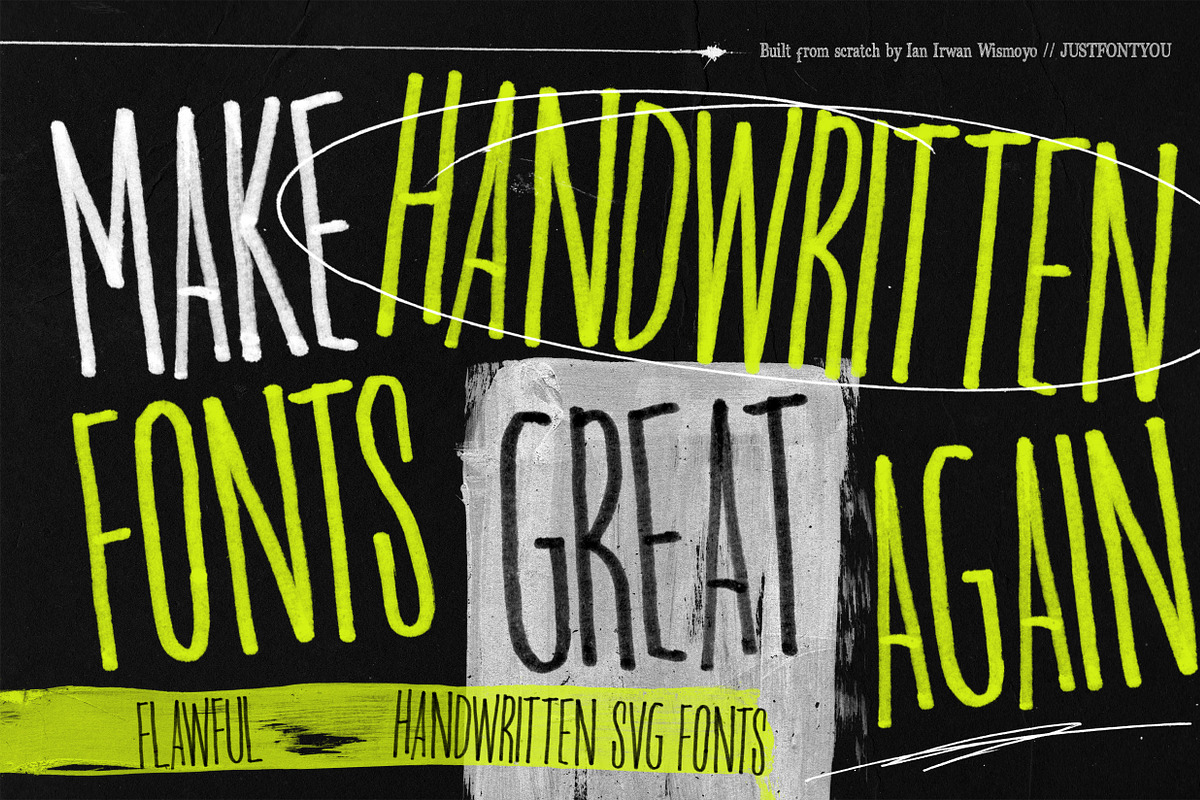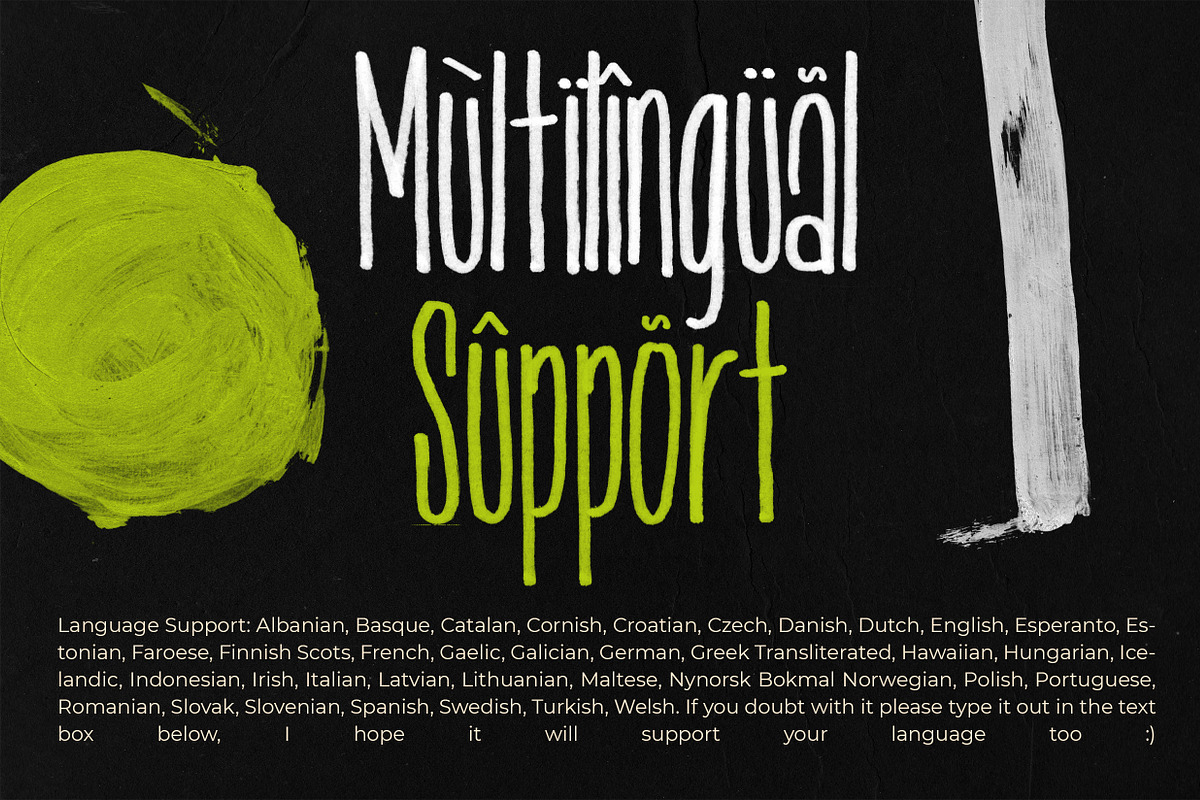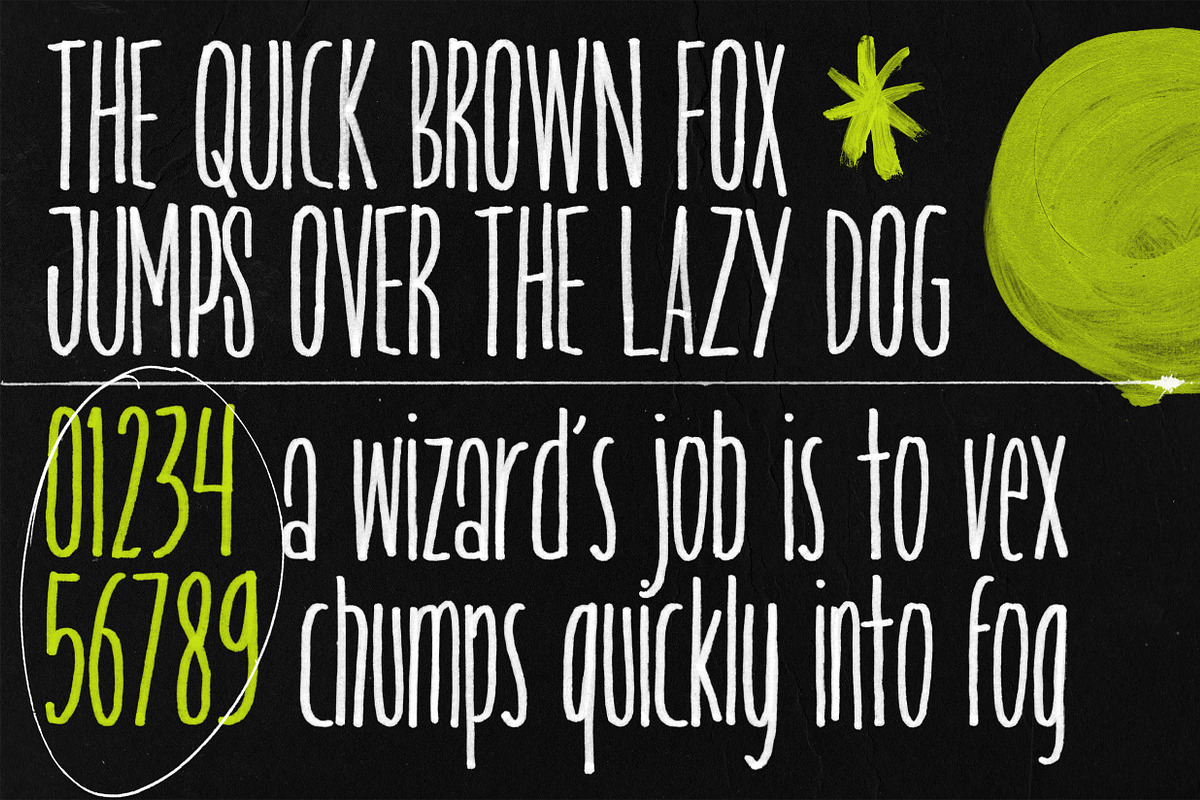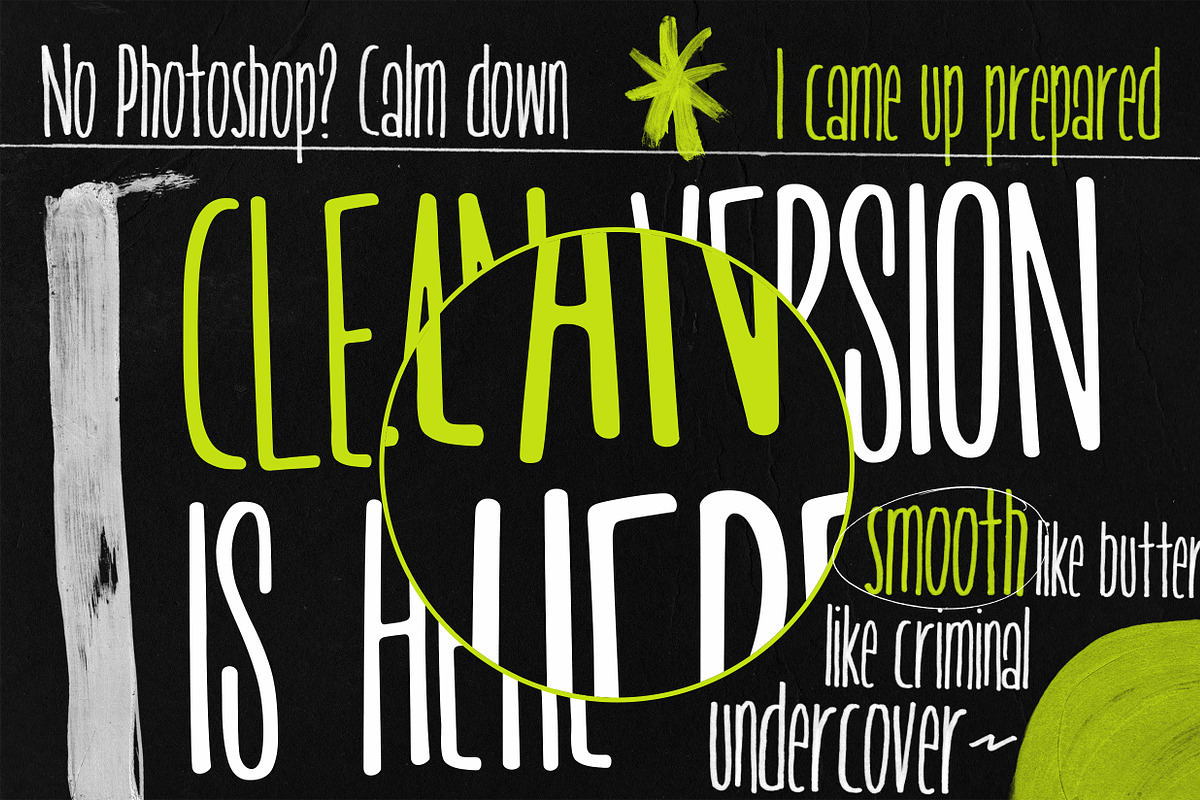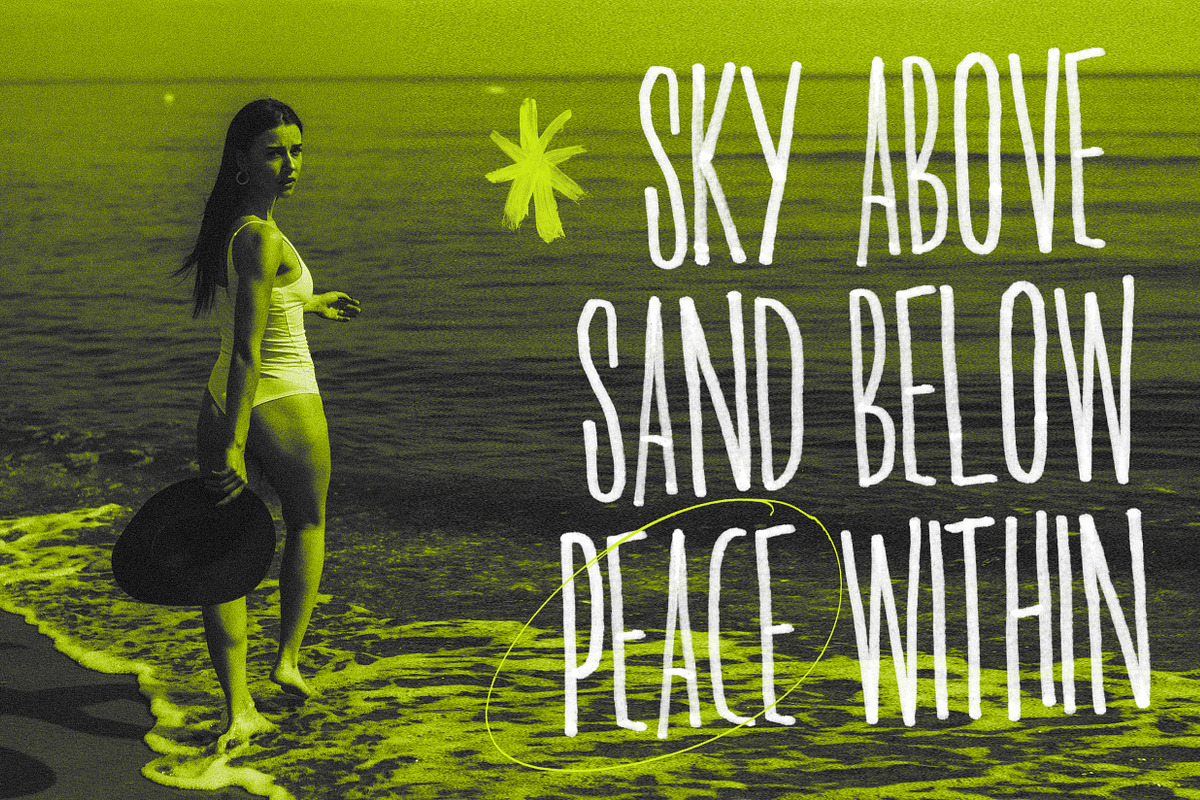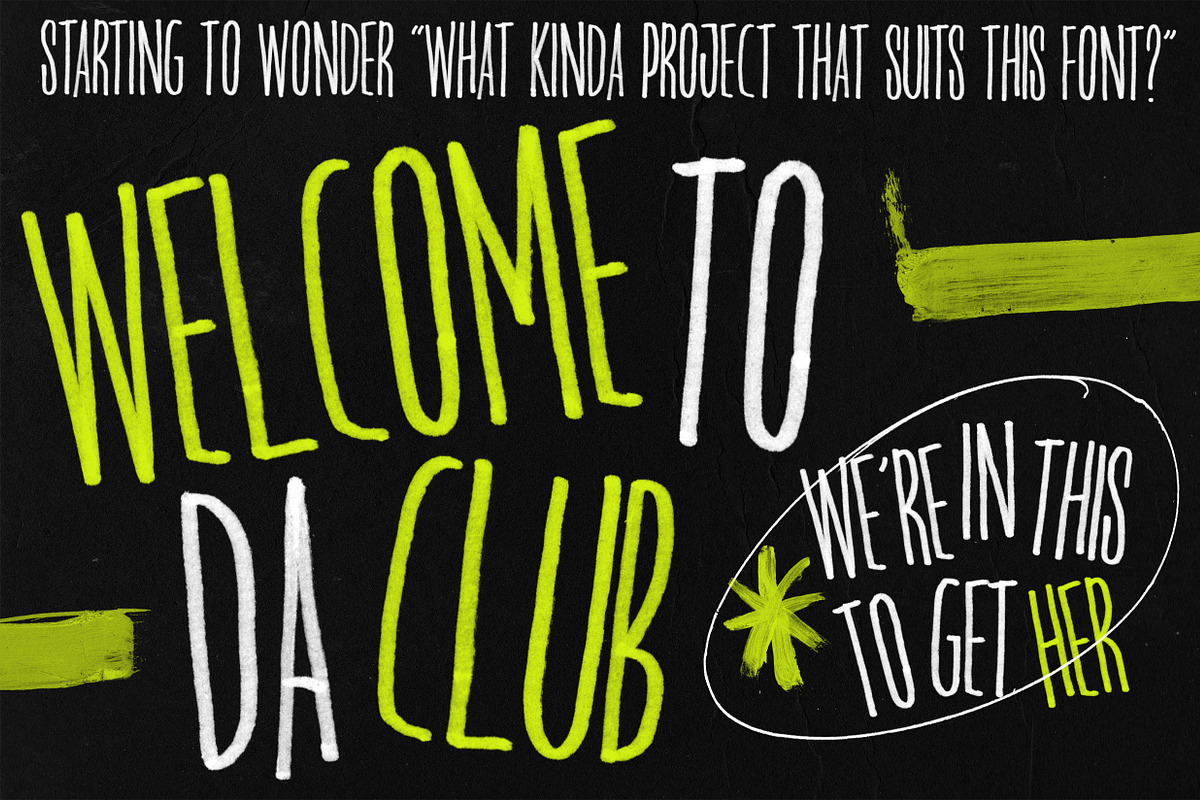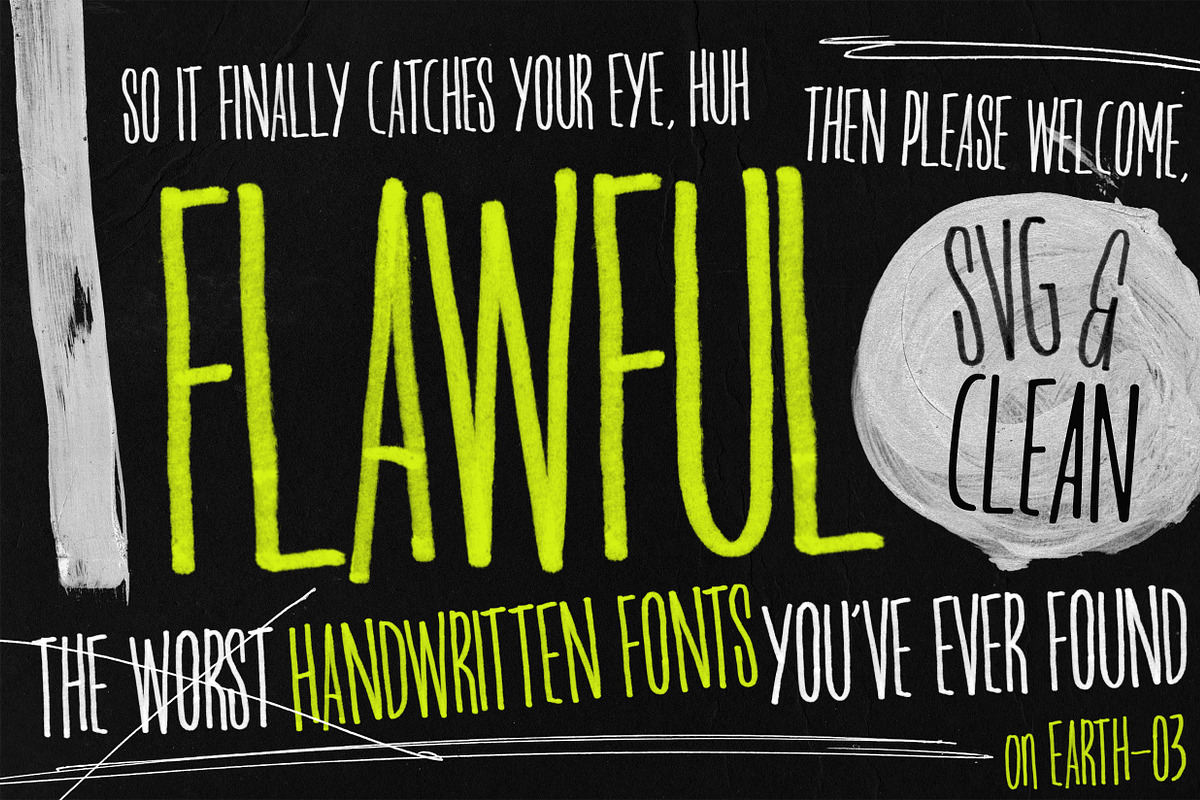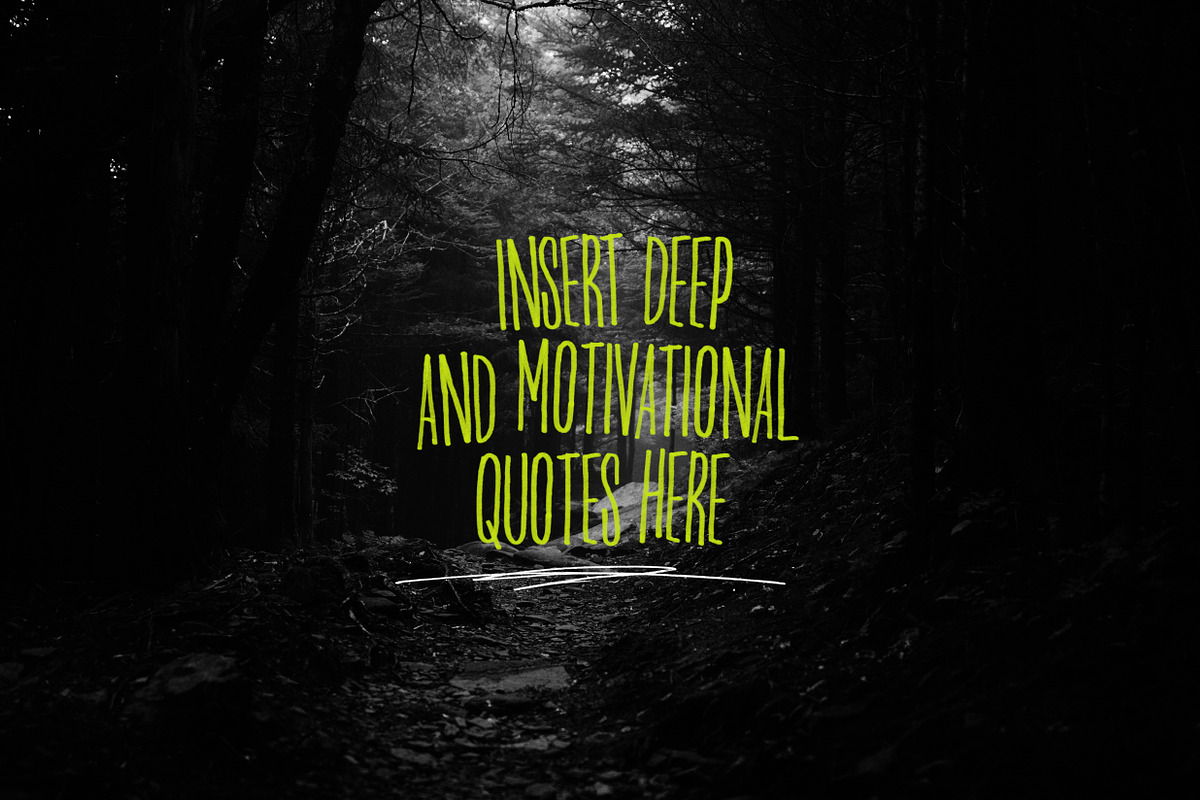
Flawful - Handwriting SVG Fonts
Sometimes it has multiple times deeper vibe in other people's hearts. Just like the infamous song in your playlist.
So I try to put my expectation super low this time and let you decide how this font should be treated. Which I believe will be much better than what I showed.
Introducing FLAWFUL. An original handwritten font that comes from my own hands.
Came up with 2 versions, SVG for the super-organic and authentic textures, and of course the clean regular for the universal usage.*